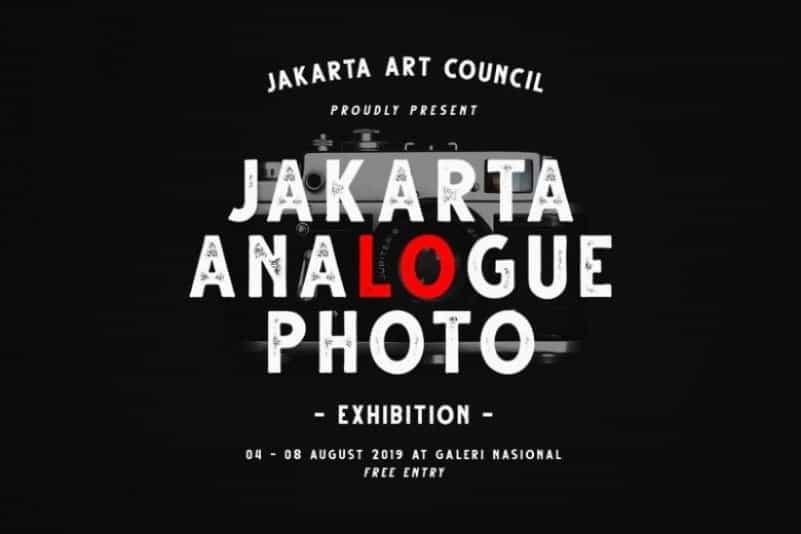
Gutter Handdrawn Sans Font Family
Gutter is a hand drawn sans serif font with a charm and vintage aesthetic. It comes in four styles; italic, rust and rust italic. Ideal for logos, branding, typography work well as vintage designs.